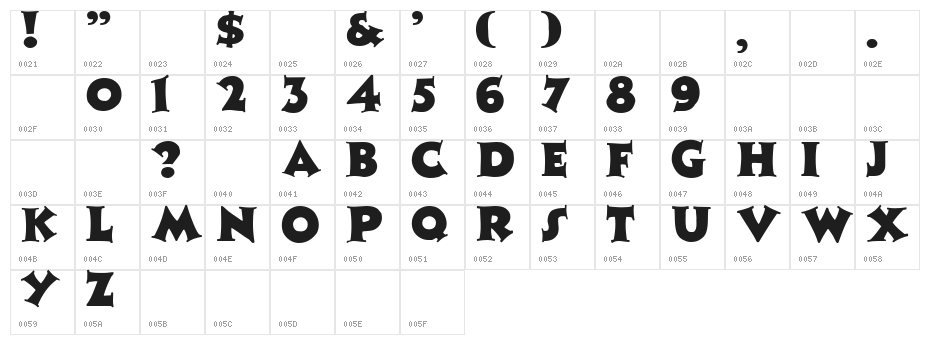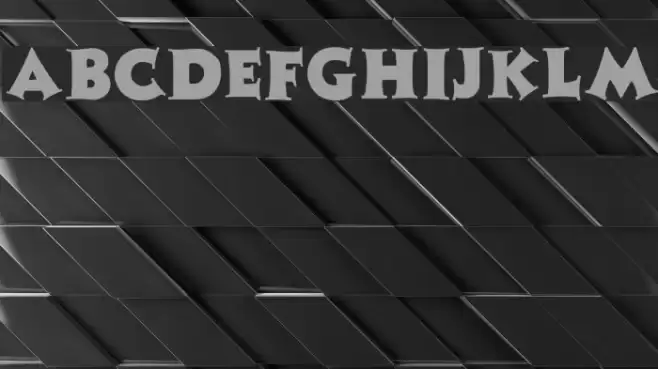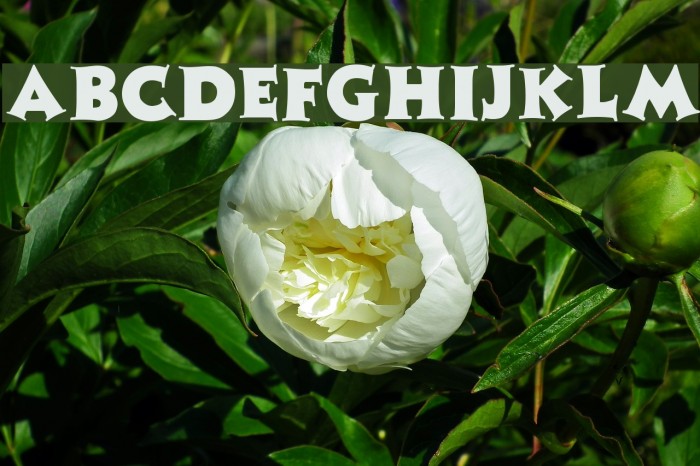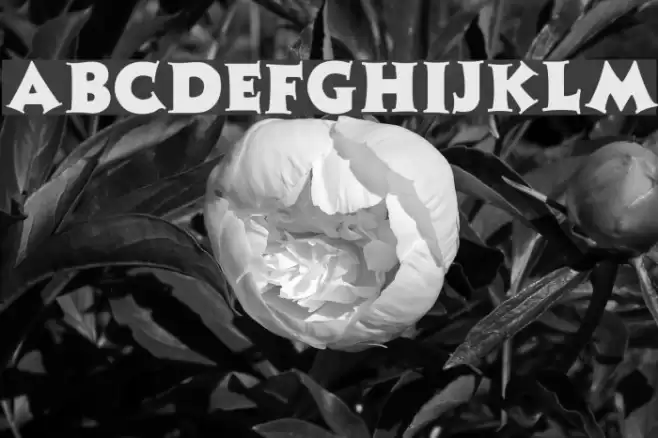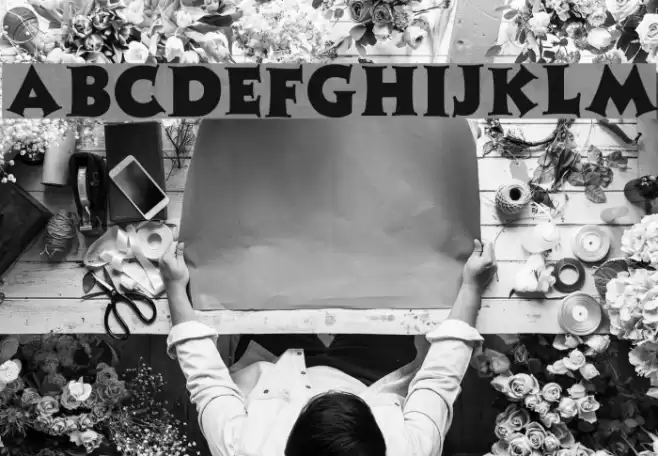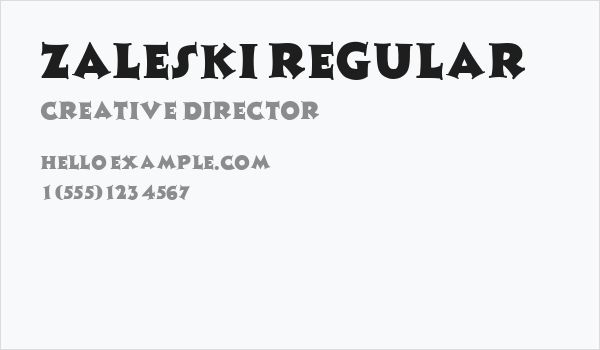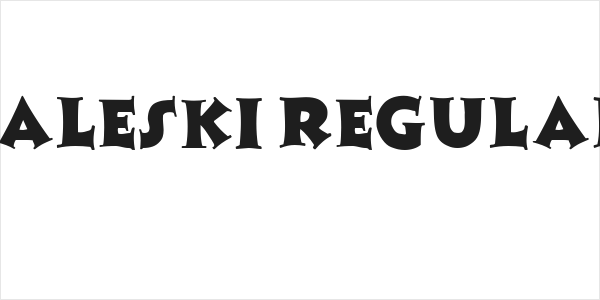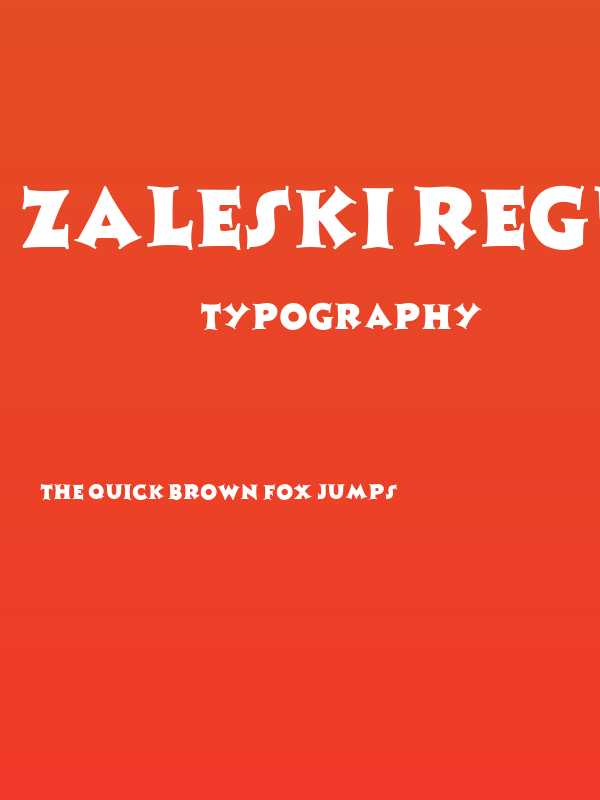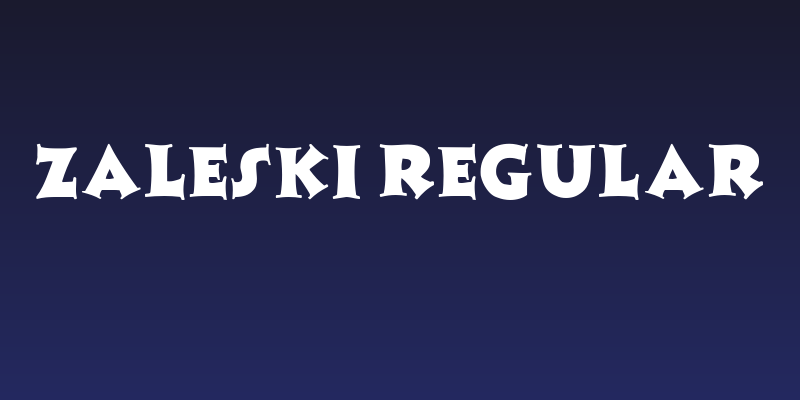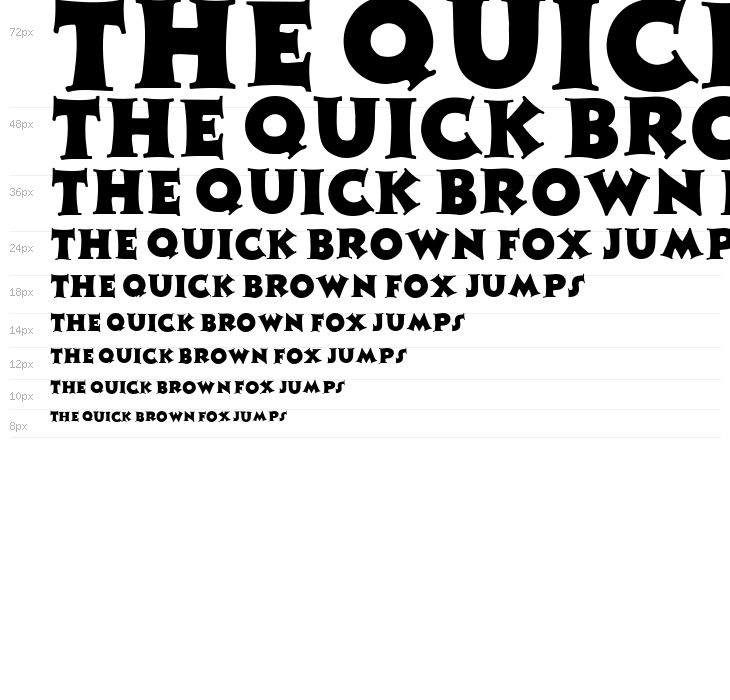
Zaleski Regular Font
Zaleski Regular Description
This font features a bold and dramatic style with sharp, angular serifs and a strong presence. The uppercase letters are particularly striking, with a medieval or gothic influence that gives them a unique, decorative flair. The lowercase letters maintain this boldness, ensuring consistency throughout the typeface. Numbers and special characters are equally bold, with a distinct, eye-catching design. The overall look is both vintage and decorative, making it suitable for projects that require a strong visual impact.
| Overall Style | Vintage, Decorative |
| Proposed Projects | Ideal for posters, book covers, branding, and any design needing a bold, vintage touch. |